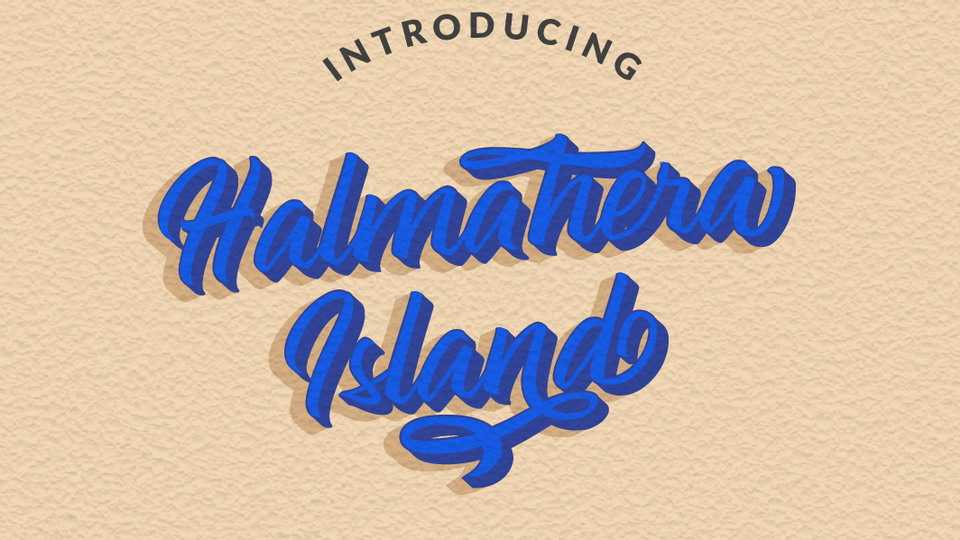
Download Halmahera Island font, an amazing hand lettered layered sctipt. Halmahera Island font made with the beautifull of hand calligraphy with 3 layer font that makes your design look 3D.
Designer: Youthlabs Studio